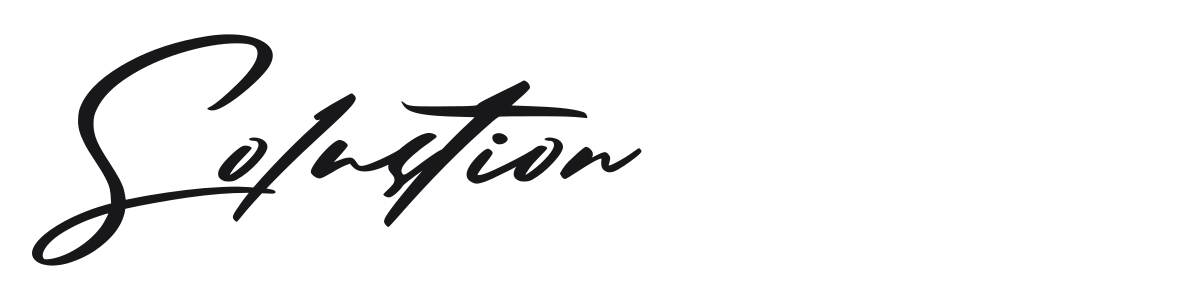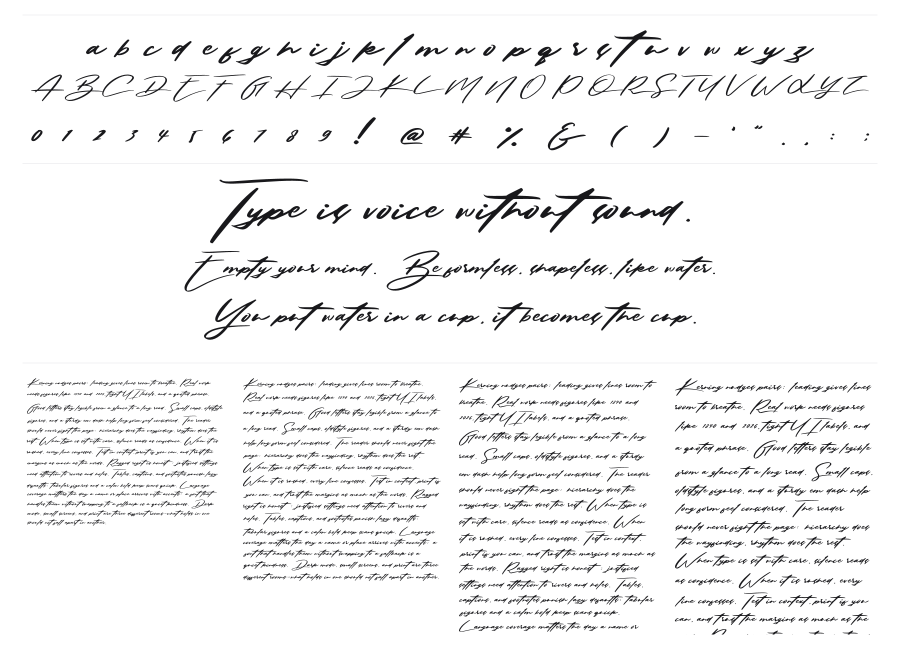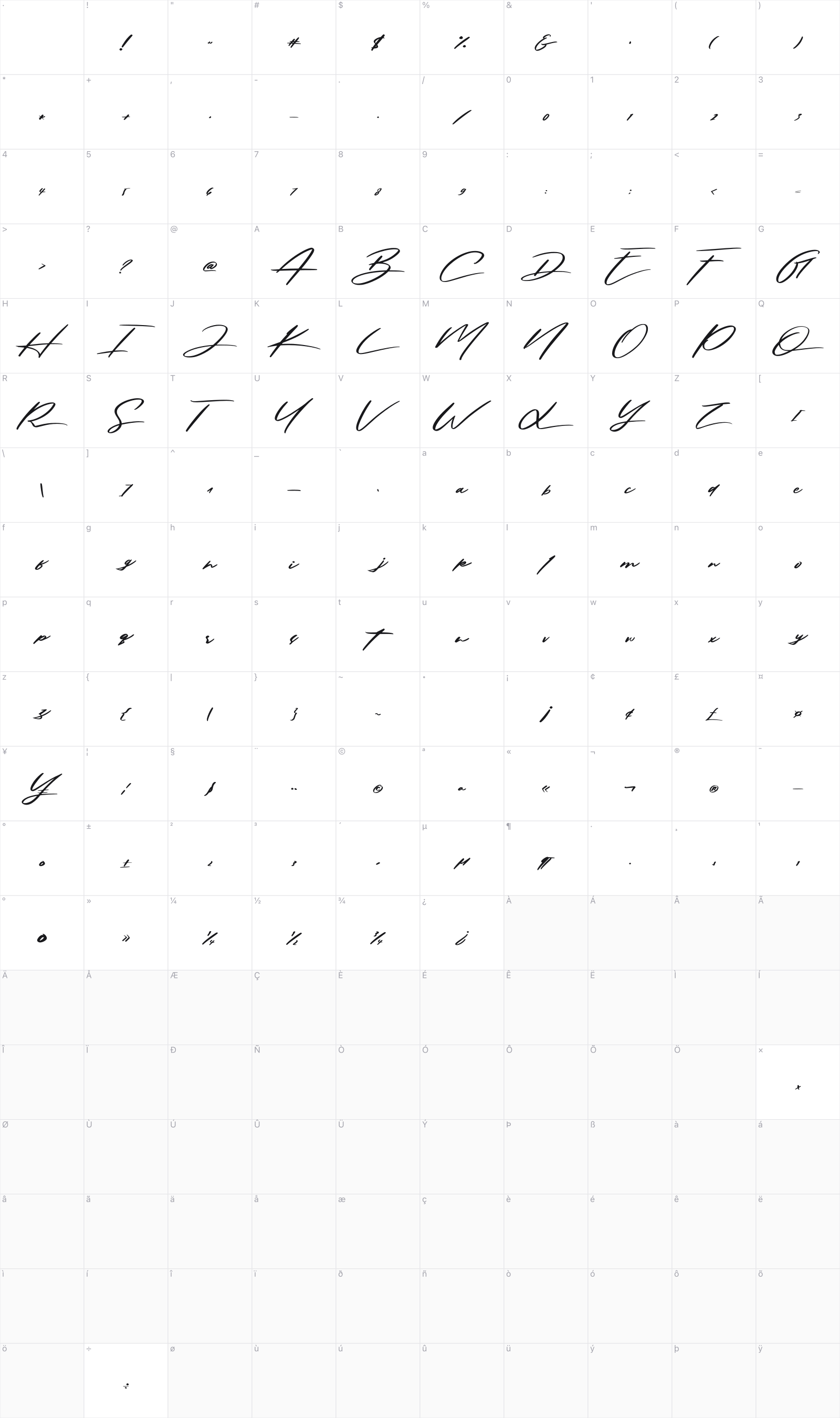
Solustion
Solustion is a bold casual script that mimics the energy of fast, freehand handwriting with a brush pen. Long looping strokes, natural letter connections, and strong stroke contrast give it a raw, authentic feel. It thrives on logos, packaging, and any headline that needs personality without pretension.